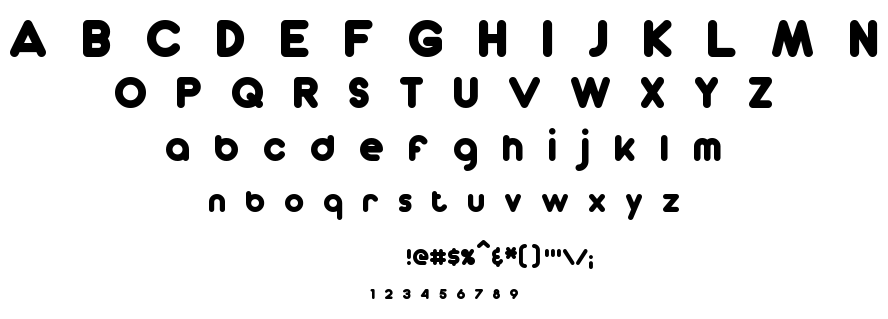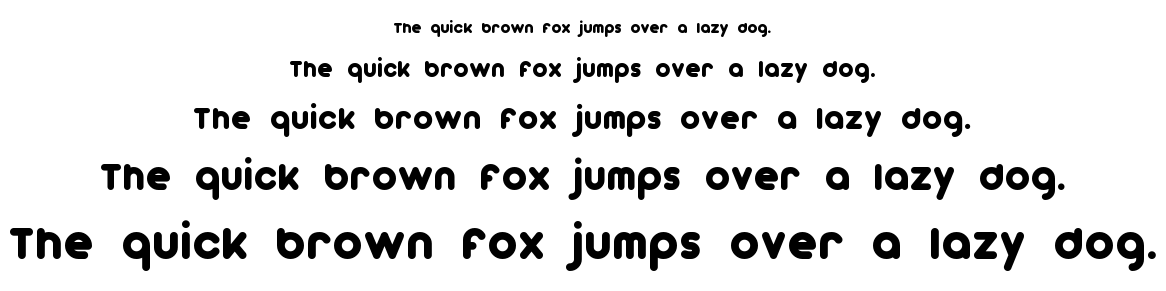
A bold, smooth font based loosely on the popular logo of “Dunkin’ Donuts’. Includes full alphabet, lower case, accents, and Euro. Modified from “Dunkin”, removing serifs from certain characters.